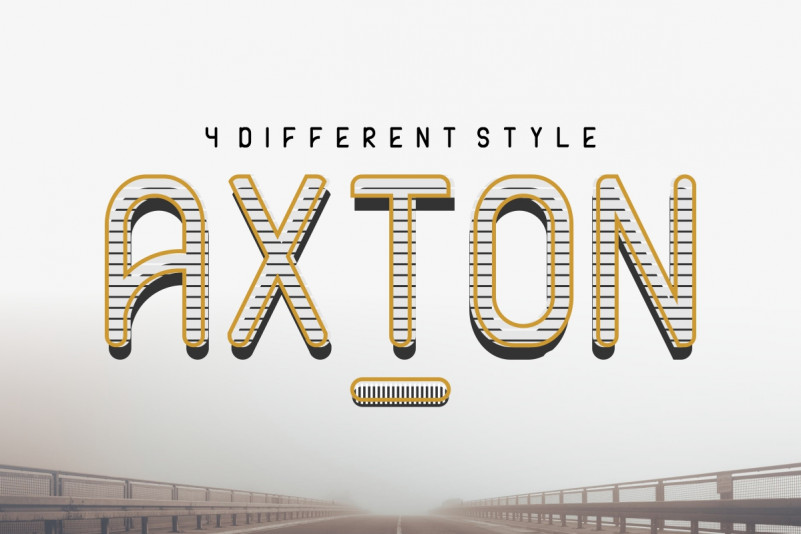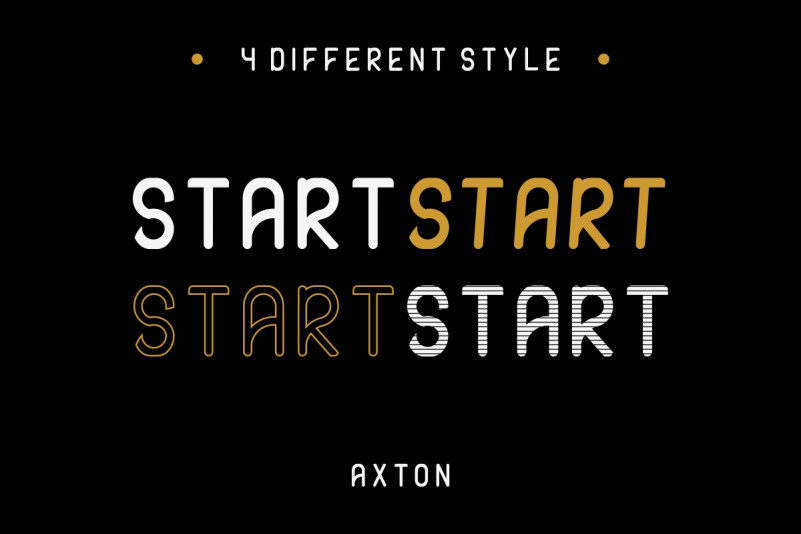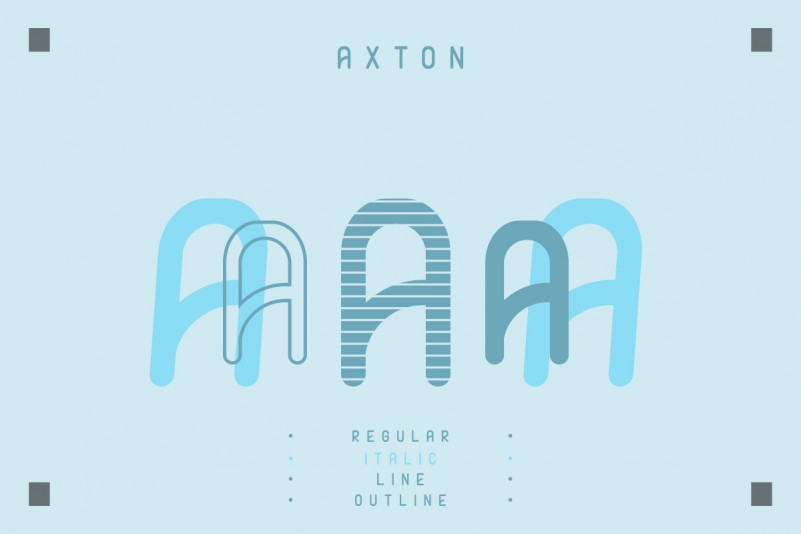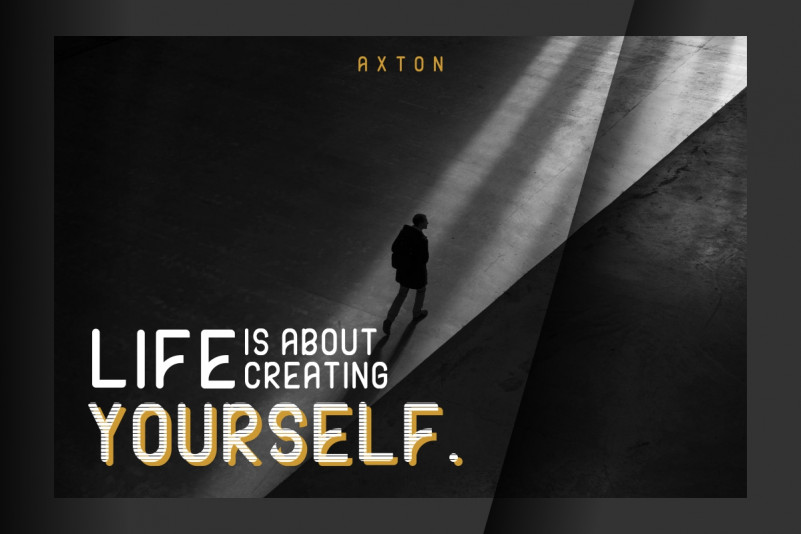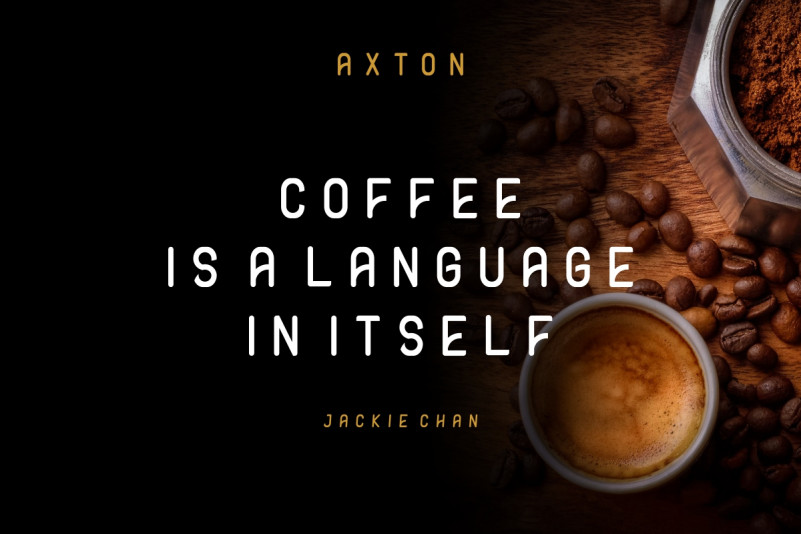
Hi Guys! It’s us again, please meet our newest font : AXTON Typeface! This is FOUR fonts into ONE. Yes, it has 4 fonts family : Sans, Italic, Line and Stroke.